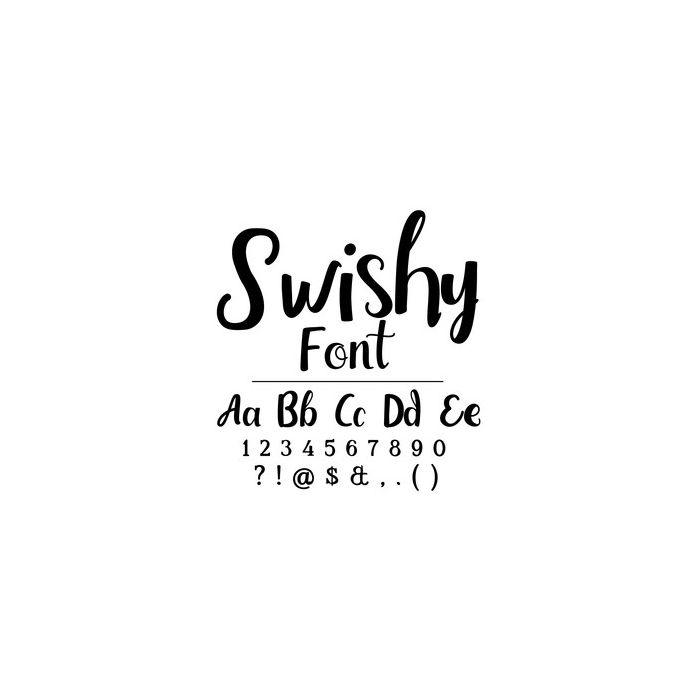
Swishy Font. Hand drawn brush script font, including upper and lower case letters, numbers and glyphs. For more design ideas, coordinating designs & products and inspiration, please visit my blog http://www.sarahhurleyblog.com